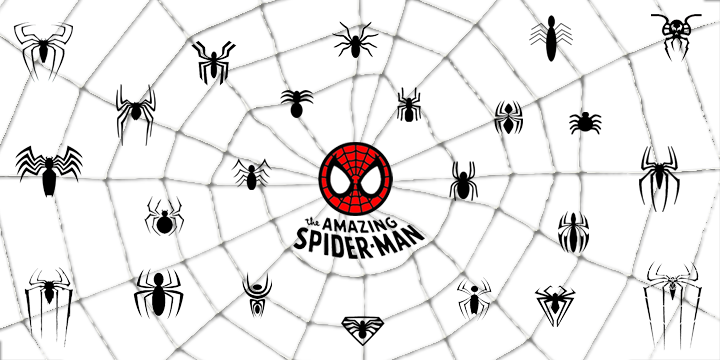
I have been wanting to create a Spidey font based on my old Spider-Man Comics from the 1970's for ages but never got around to it until 2012. So with the latest The Amazing Spider-Man movie due out in July here is my personal look back over the last 50 years of Spider-Man costume logos and a few extras for all you Webslingers out there !!! THIS FONT VERSION IS STRICTLY FOR PERSONAL USE ONLY For the fully kerned OTF embeddable commercial version of this font please visit my Etsy Store @ http://etsy.me/2ecH3Xh |